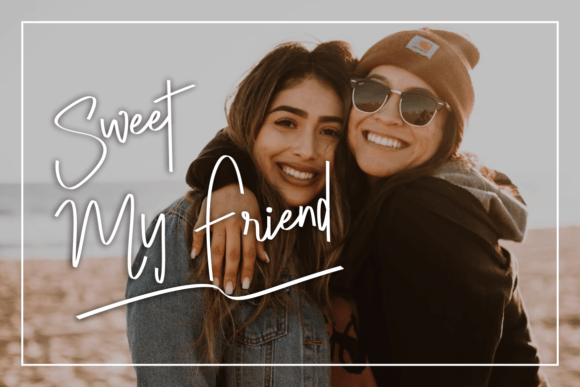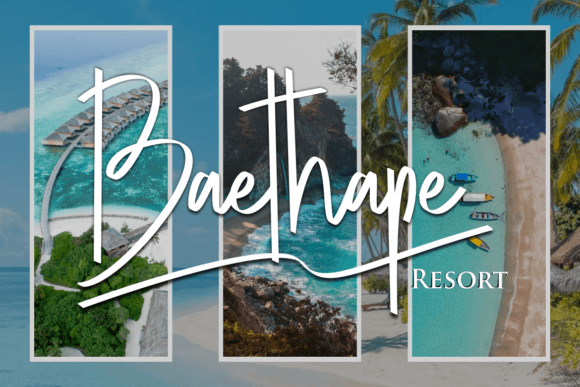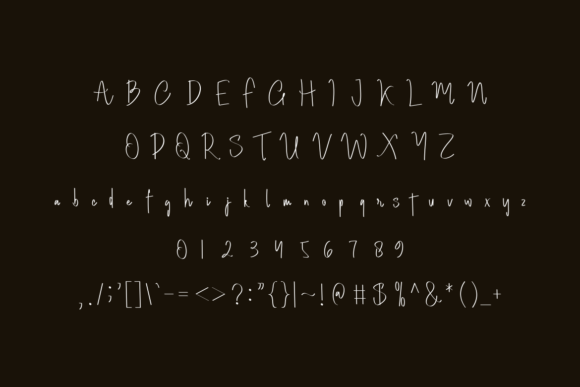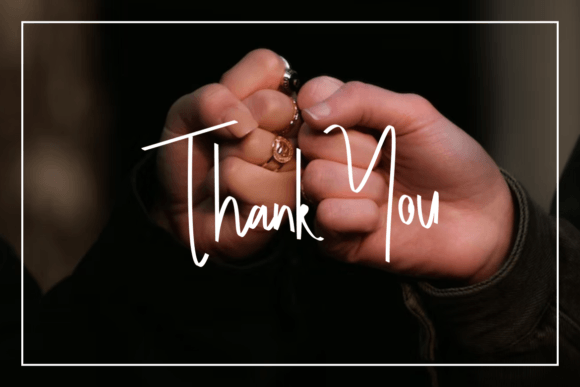
Introducing Baethape Font: The Ultimate Choice for Bold and Authentic Designs
In the world of typography, fonts play a crucial role in conveying the tone and personality of a brand. For designers and crafters looking for a bold and authentic script font, Baethape is an excellent choice. This versatile font is suitable for a wide range of branding projects, including logos, t-shirt printing, esports, and many more. In this article, we’ll explore the features and benefits of Baethape Font and why it’s an excellent addition to your design toolkit.
What is Baethape Font?
Baethape Font is a bold and authentic script font designed to make a statement. Its unique and elegant lettering style makes it perfect for creating eye-catching designs that stand out from the crowd. The font’s bold and confident appearance is ideal for designers who want to add a touch of sophistication and personality to their work.
Key Features of Baethape Font
- Bold and Authentic: Baethape Font boasts a bold and authentic script style that’s perfect for making a statement.
- Versatile: This font is suitable for a wide range of design projects, from logos and t-shirt printing to esports and more.
- Elegant Lettering: Baethape Font features elegant and flowing lettering that’s perfect for creating sophisticated designs.
- Easy to Read: Despite its bold style, Baethape Font is easy to read, making it perfect for use in a variety of contexts.
Use Cases for Baethape Font
Baethape Font is an incredibly versatile font that can be used in a wide range of design projects. Here are some examples of how you can use Baethape Font:
- Logo Design: Baethape Font is perfect for creating bold and memorable logos that stand out from the crowd.
- T-Shirt Printing: The font’s bold and authentic style makes it ideal for use in t-shirt printing projects.
- Esports: Baethape Font is a great choice for esports branding, including team logos, jerseys, and marketing materials.
- Posters and Flyers: The font’s bold style makes it perfect for use in posters and flyers that need to grab attention.
Benefits of Using Baethape Font
So why choose Baethape Font for your design projects? Here are some benefits of using this versatile font:
- Unique and Memorable: Baethape Font’s bold and authentic style makes it perfect for creating unique and memorable designs.
- Time-Saving: With Baethape Font, you can create professional-looking designs in no time, saving you time and effort.
- Customizable: The font is highly customizable, allowing you to adjust the style to suit your design needs.
- High-Quality: Baethape Font is a high-quality font that’s designed to deliver exceptional results in a variety of contexts.